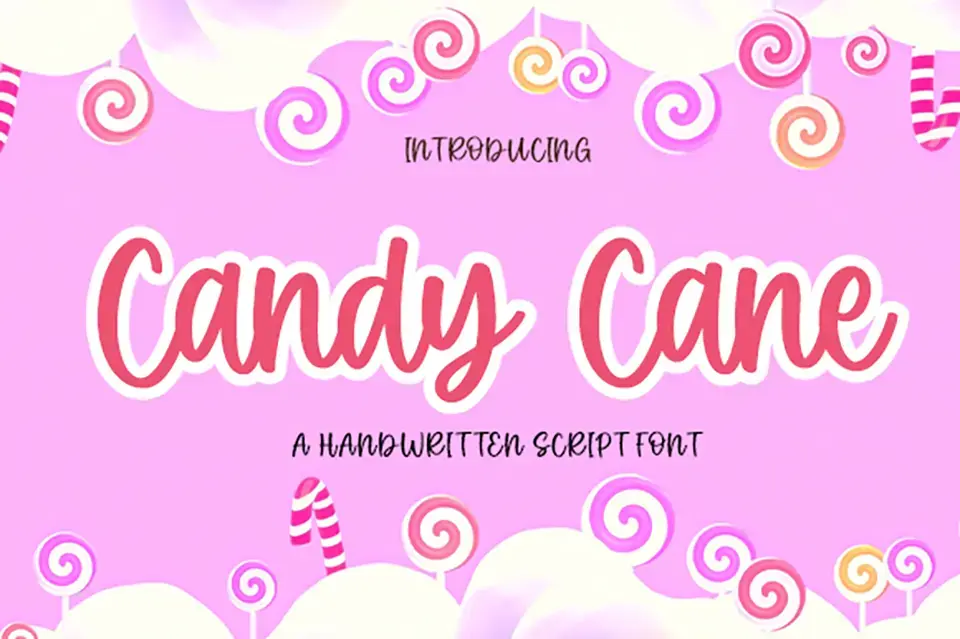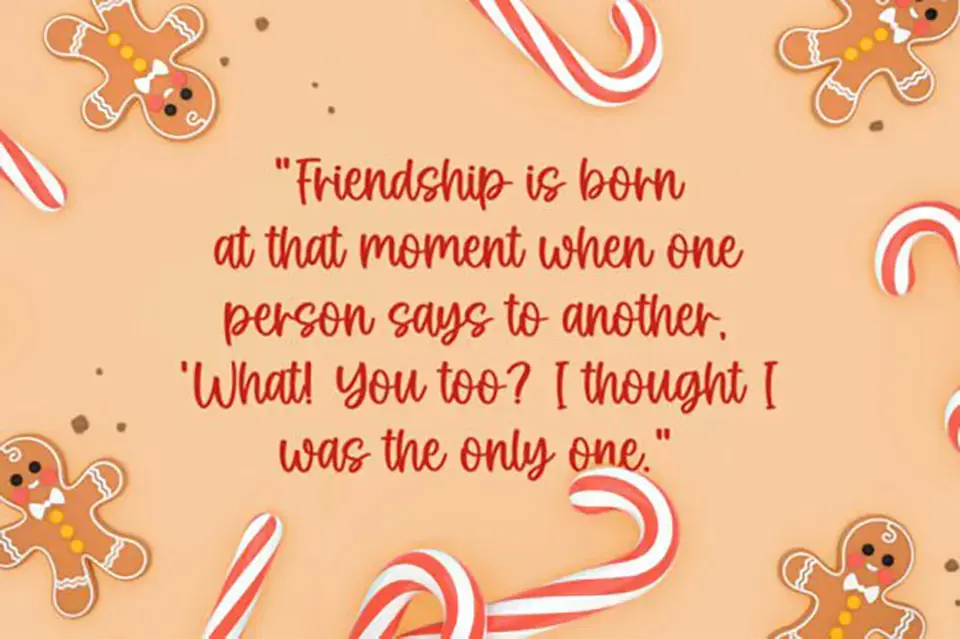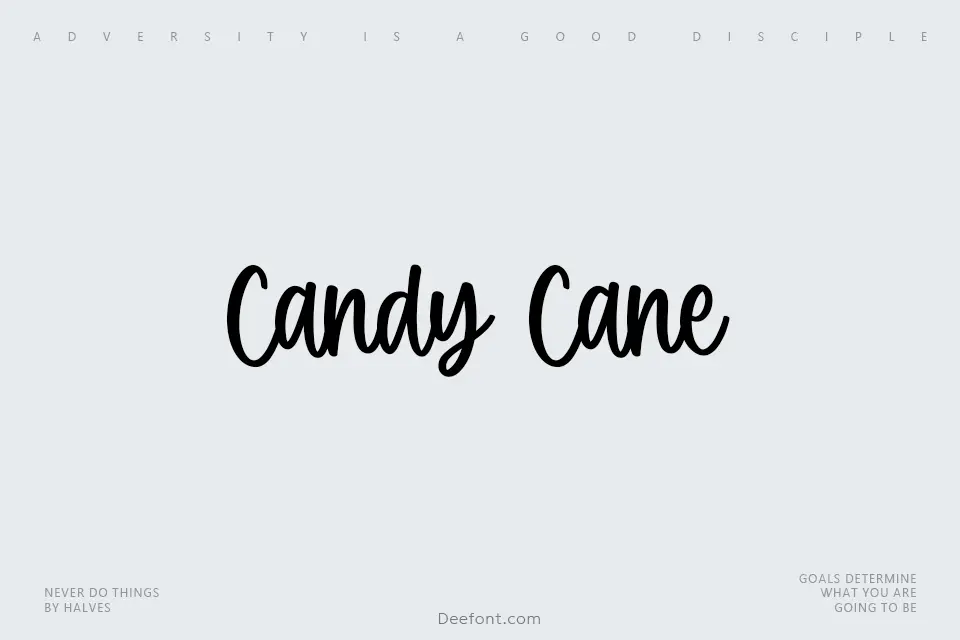
Candy Cane Handwritten Font
Candy Cane is a delightful handwritten script typeface that captivates with fluid, organic letterforms and a playful character. Each curve flows naturally, evoking the warmth of hand-penned design with modern appeal. The font excels in holiday-themed projects, seasonal promotions, festive invitations, and celebratory graphics. Its accessible letterforms and approachable aesthetic make it ideal for greeting cards, product packaging, poster design, and social media branding where personality and charm matter most.